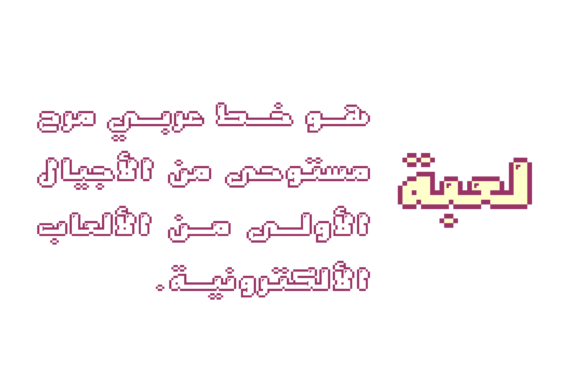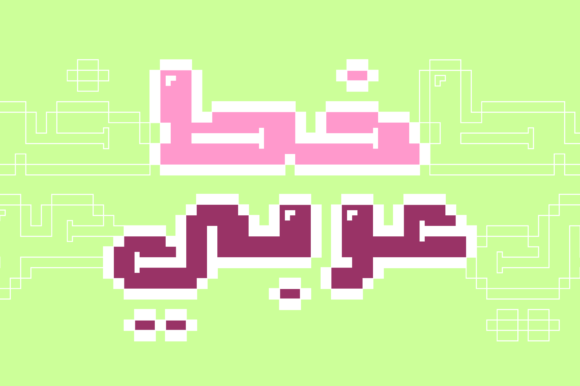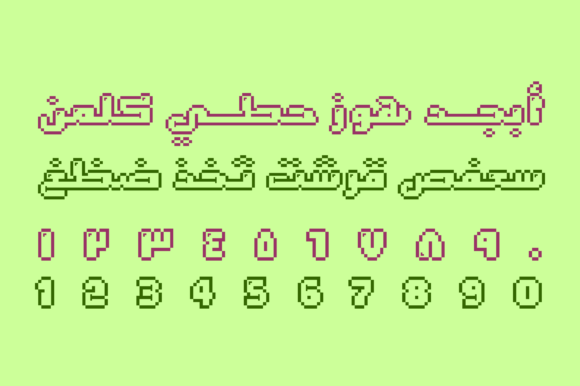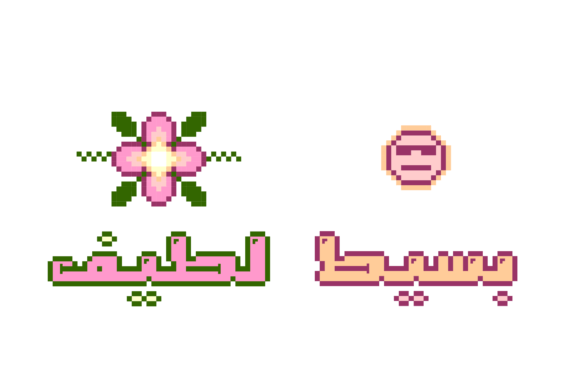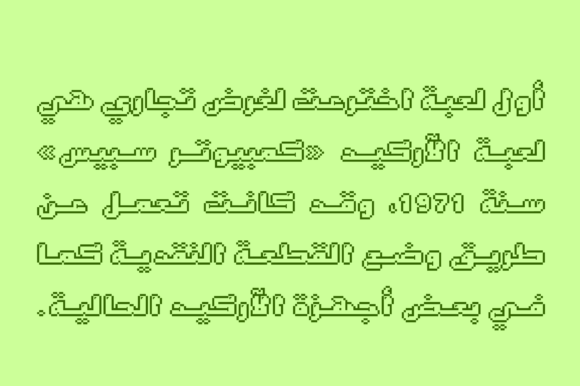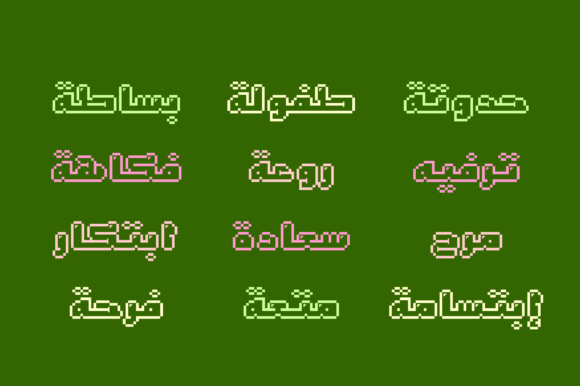
Introduction to Loabah Font
Have you ever been stuck on a creative project, scrolling through countless design resources, searching for the perfect font to elevate your work? For many designers, this is a familiar struggle. But what if you stumbled upon a font that not only sparks inspiration but also pays homage to the nostalgic 8-bit graphics of the 1980s?
Enter Loabah Font, a single-weight Arabic display font that embodies the spirit of fun and playfulness. Inspired by the pixel art of yesteryear, Loabah Font is designed to add a touch of whimsy to your creative projects, from web design to advertising and beyond.
Key Features of Loabah Font
- Unique, hand-drawn design suitable for creative projects
Honest Review: Loabah Font
I recently had the chance to work with the Loabah Font, and I must say it’s been a game-changer for my creative projects. This free download has been a fantastic design resource, offering a unique style that’s perfect for those looking to add a touch of elegance to their work.
The Loabah Font features a transparent background, allowing for seamless integration with any design. Its high-quality glyphs ensure that your text stands out, even at small font sizes.
Here are some aspects that work well with the Loabah Font:
- Unique style that sets it apart from other fonts
- High-quality glyphs for crisp and clear text
- Limited character set, which may not be suitable for complex texts
- No bold or italic styles, which can limit its versatility
Overall, I’m impressed with the Loabah Font. While it has its limitations, its unique style and high-quality glyphs make it a valuable addition to any designer’s toolkit.
The Loabah Font is suitable for a variety of design projects, including logos, graphics, presentations, and documents. Its high quality and versatility make it an ideal design resource for creative projects.